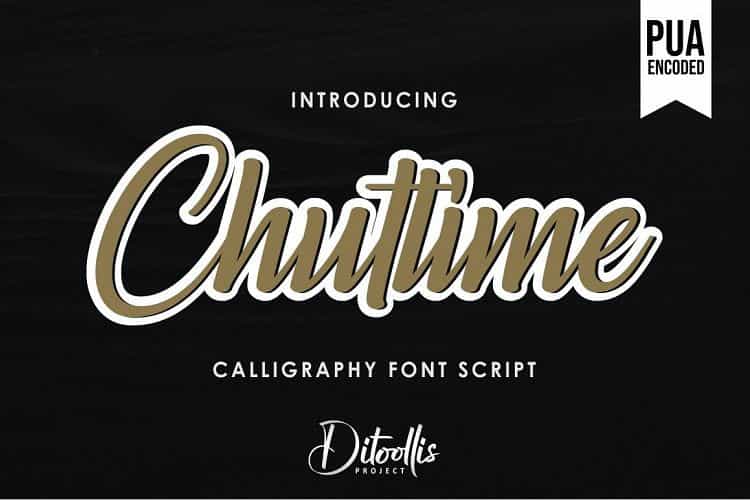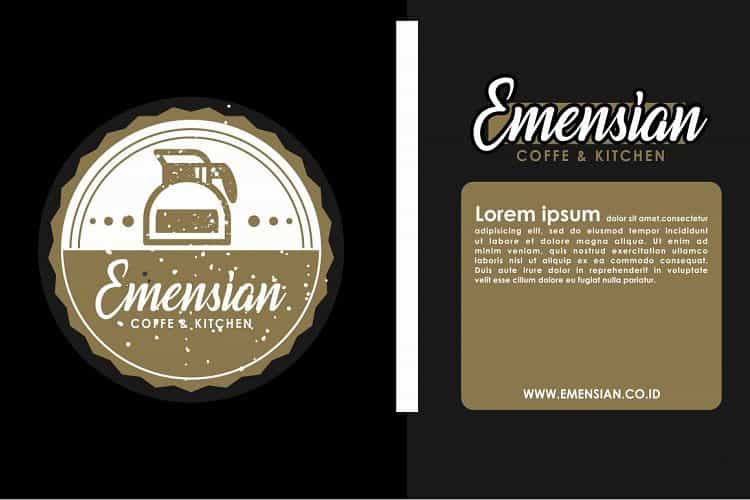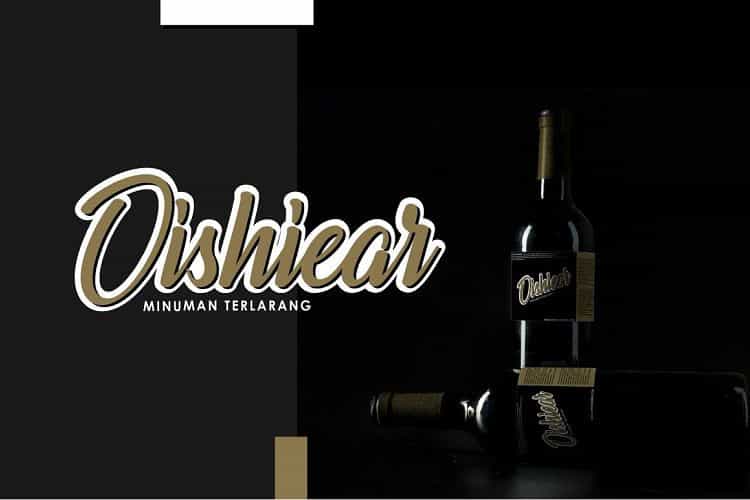
Introducing Chuttime Font. This font is a very modern one, and is a perfect choice for your design … Chuttime Script is very well suited for greeting cards, branding materials, business cards, quotes, posters, and more!